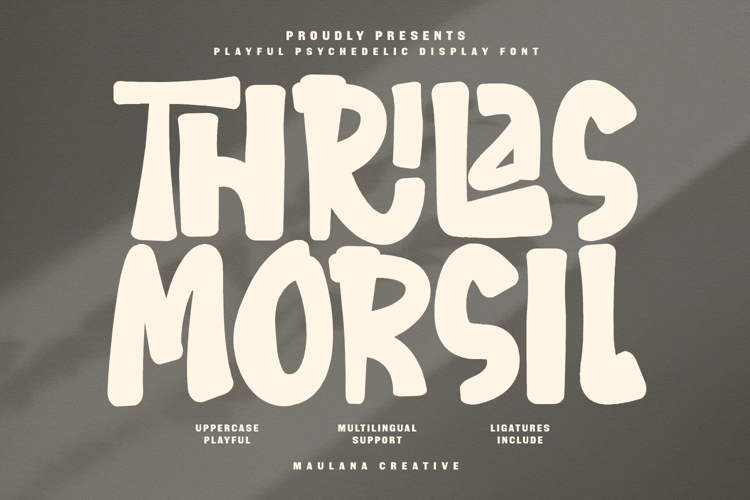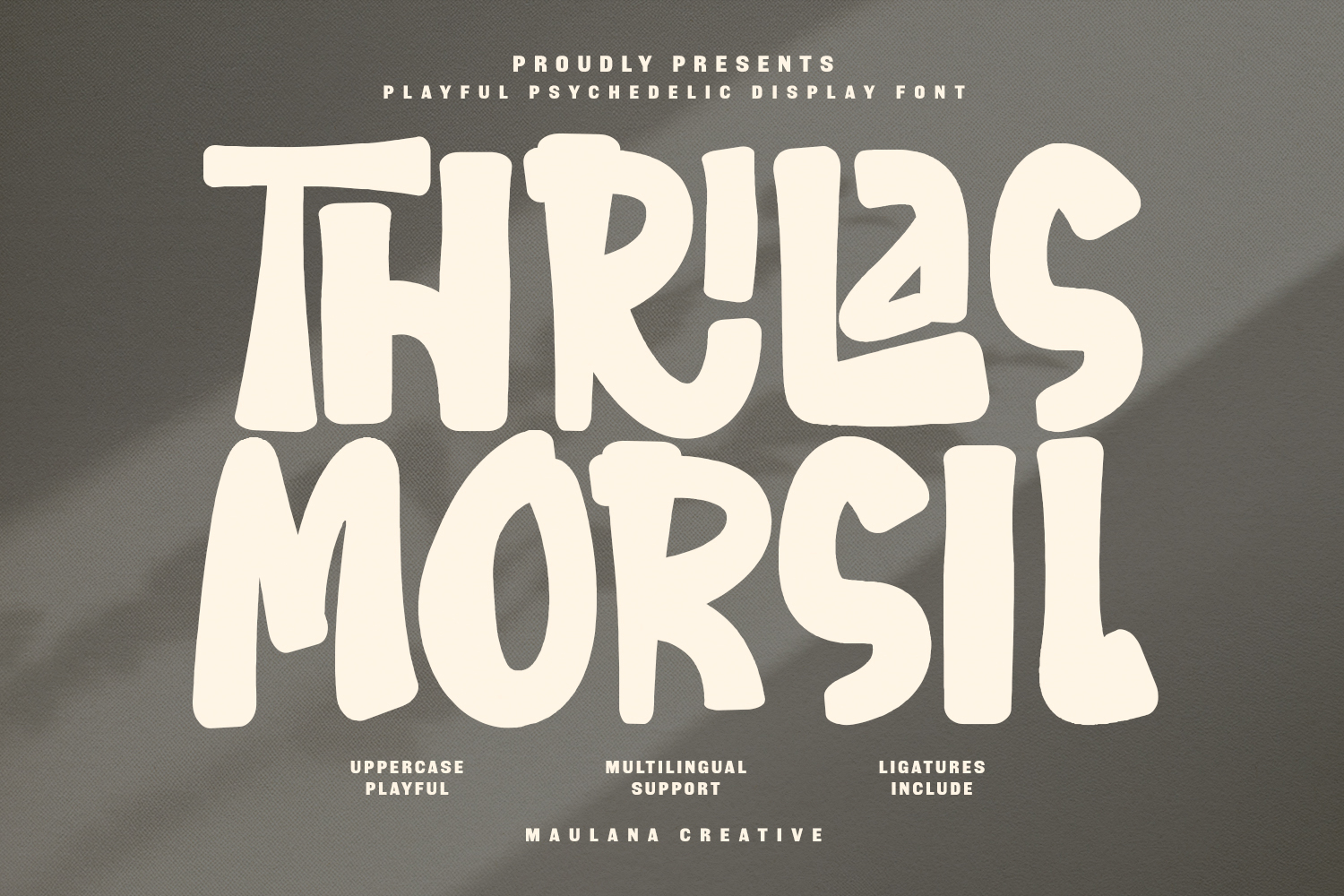
Thrilas Morsil Playful Psychedelic Display Font
Step into a world of fluid creativity with Thrilas Morsil, a display font that perfectly balances retro psychedelic vibes with a modern, playful twist. Inspired by the melting shapes of the hippie era, this typeface features unique, wobbly strokes and expressive ligatures that give your text a rhythmic, "groovy" movement.
Whether you are designing eye-catching posters, trendy apparel, vibrant social media graphics, or bold brand identities, Thrilas Morsil adds an instant touch of joyful nostalgia. It comes packed with multilingual support and special ligatures to ensure your designs look hand-crafted and authentic.
- Ligatures for a natural handwriting flow